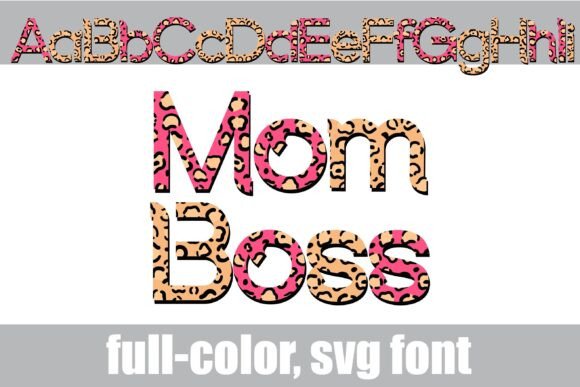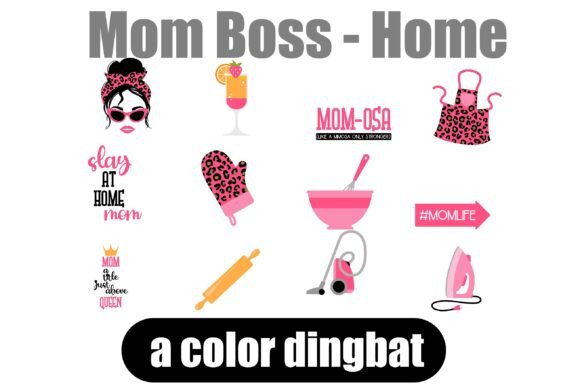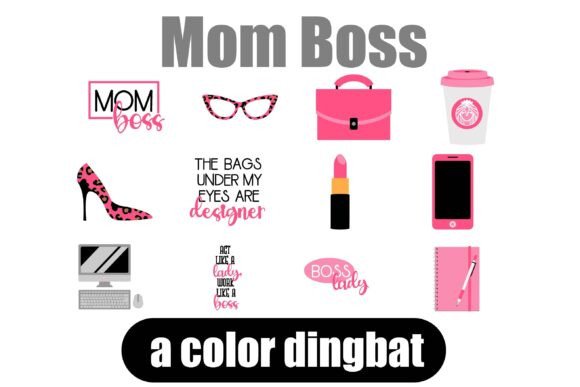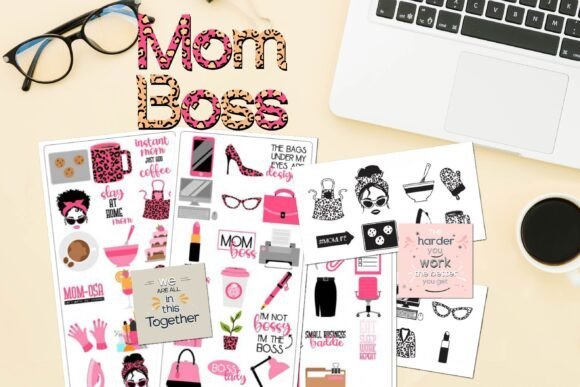
Introduction to Mom Boss Font
Mom Boss.
This font bundle features a minimal-style mom, leopard print, and all the imagery that shows you who is boss (mom ) This bundle features 1 full-color font, with an alt case of additional colors of each letter that you can access through your system or Silhouette’s glyph map, 2 full-color dingbats, 2 regular dingbats, and 1 regular sans serif font in regular and bold.
Key Features of Mom Boss Font